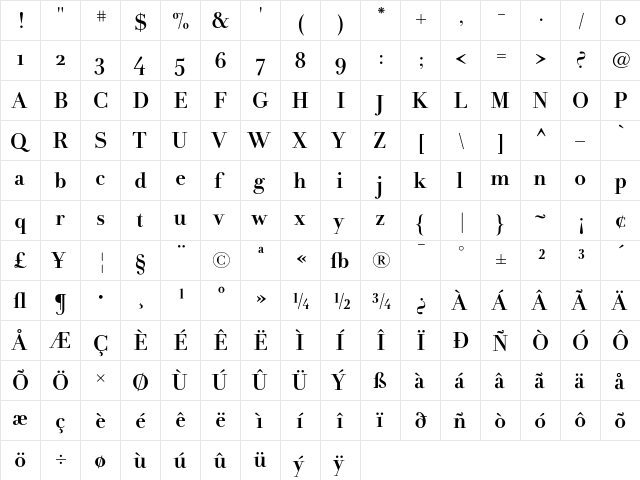
AndradeBold Regular
AndradeBold offers clean, dependable letterforms without strong stylistic allegiance, making it a practical choice for designers who need flexibility. The heavy weight commands attention and anchors typographic hierarchies.